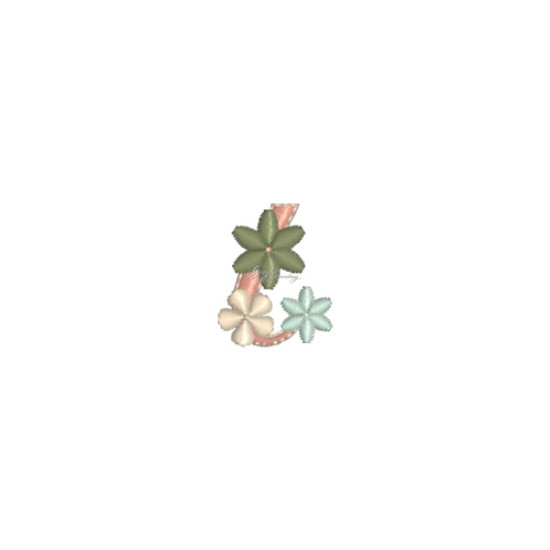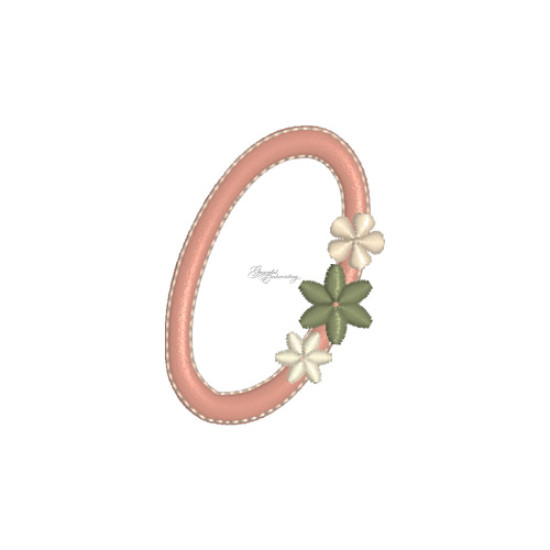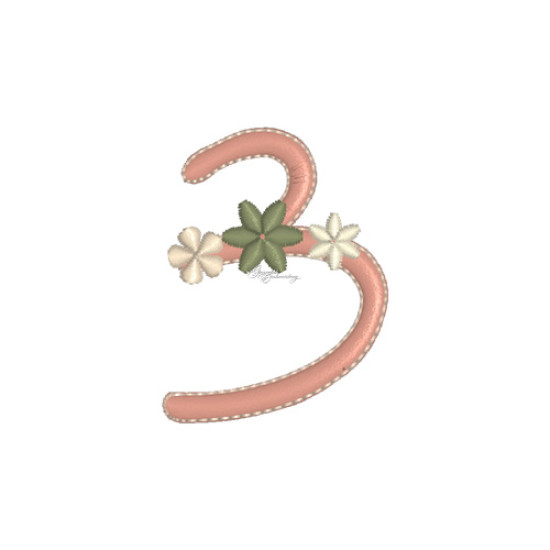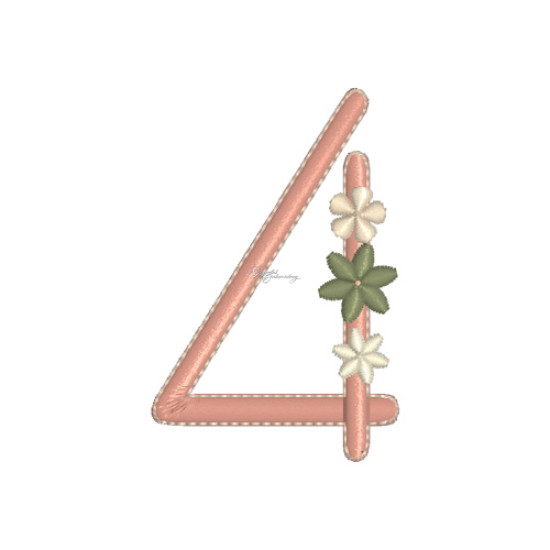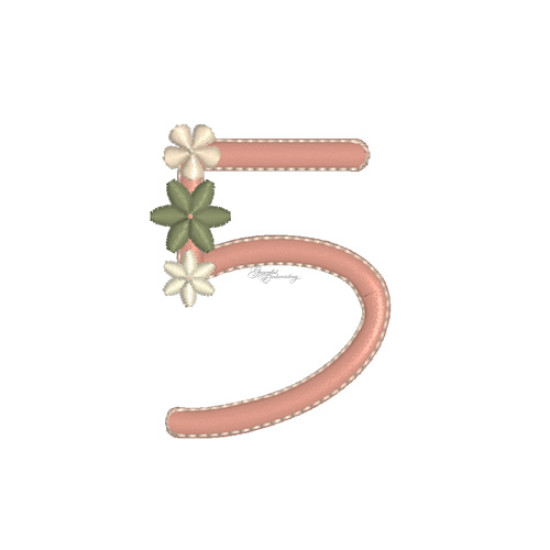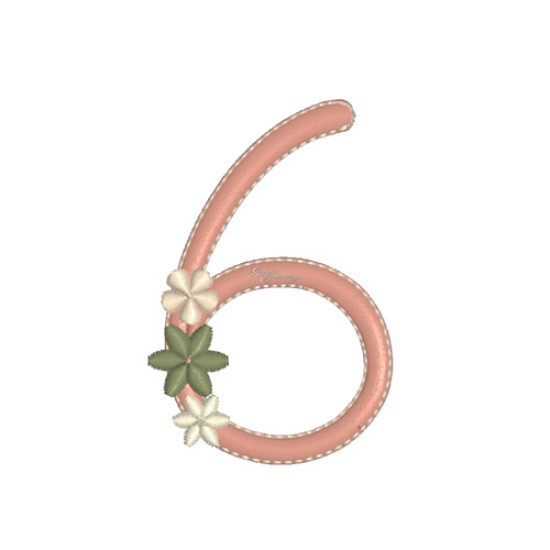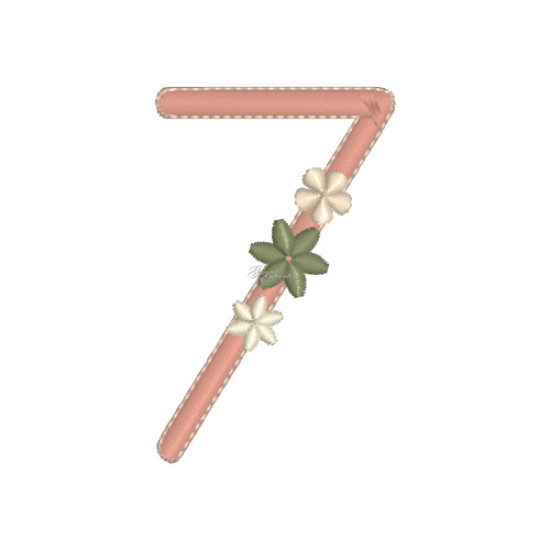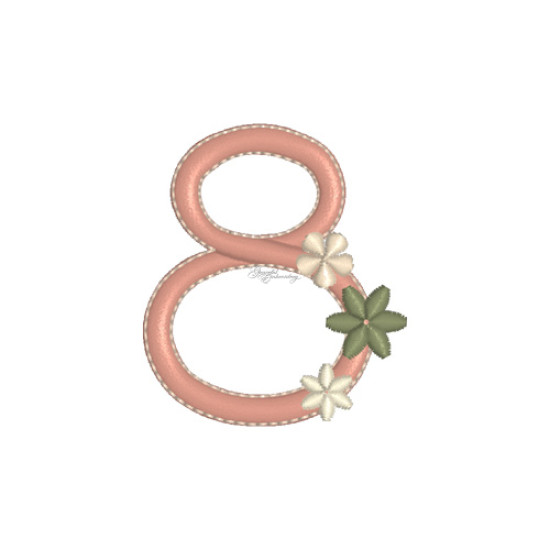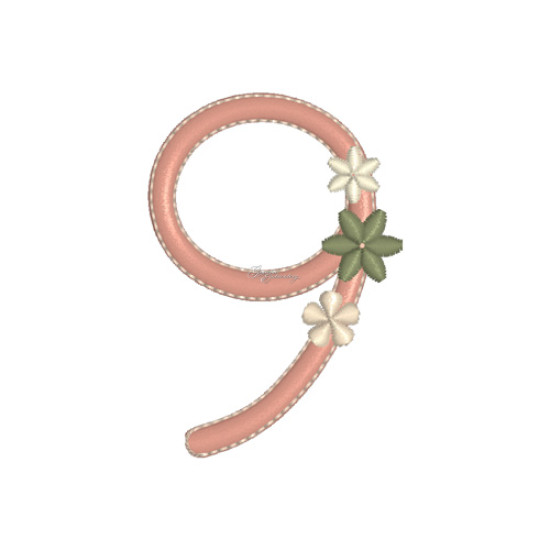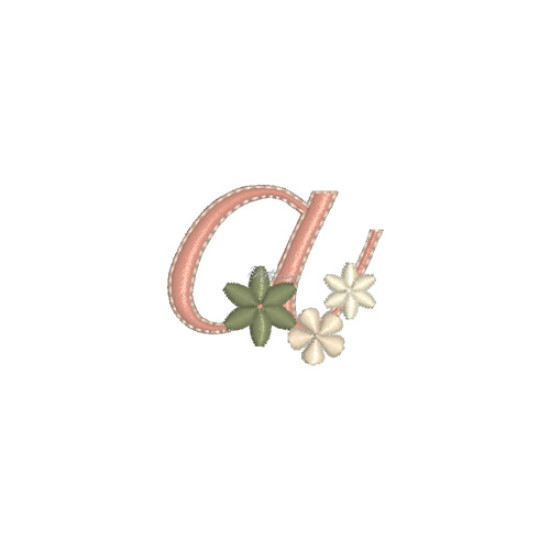
The Grace Font - lower case
The Grace Font-lower case.
After the success of the Grace Font I have created lower case letters, numbers and a few symbols to match. Move the flowers around or edit some or all out. Give the designs a different look on sheer fabric by stitching the first colour way on mesh stabiliser, and then adding the fabric for shadow work as shown. M ore details in the accompanying PDF.